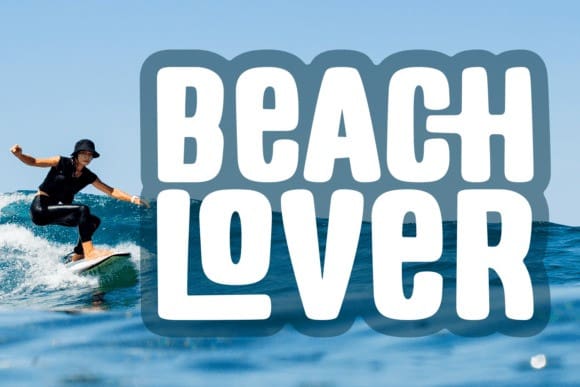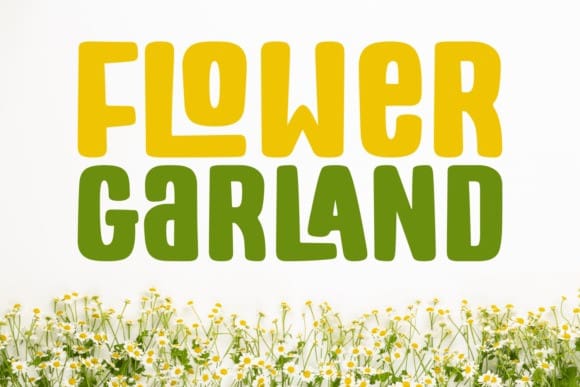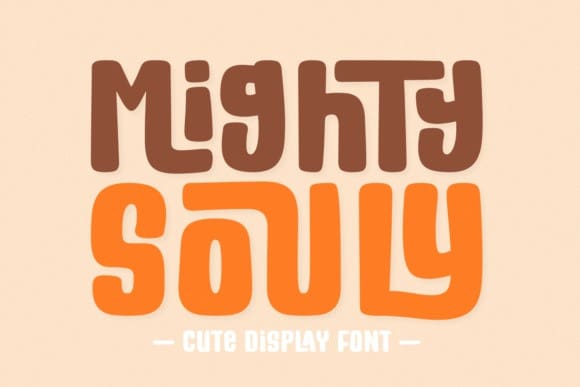
Mighty Souly Font
Mighty Souly Font is a clean and playful display font that’s designed to add a touch of whimsy to your projects. Its bold and striking letters are carefully crafted to create a sense of simplicity and fun, making it perfect for headlines, posters, and other display purposes. Let this typeface infuse your creations with its unique and playful energy.